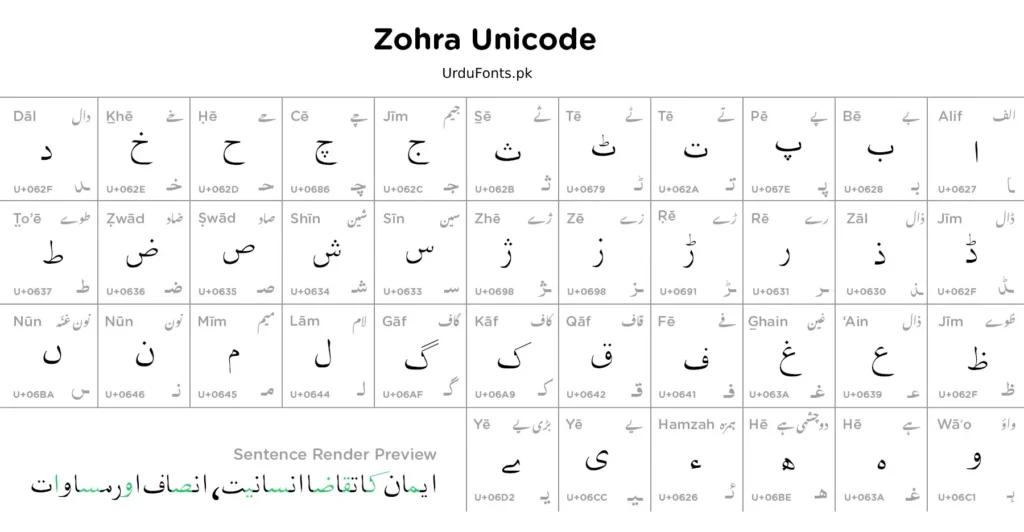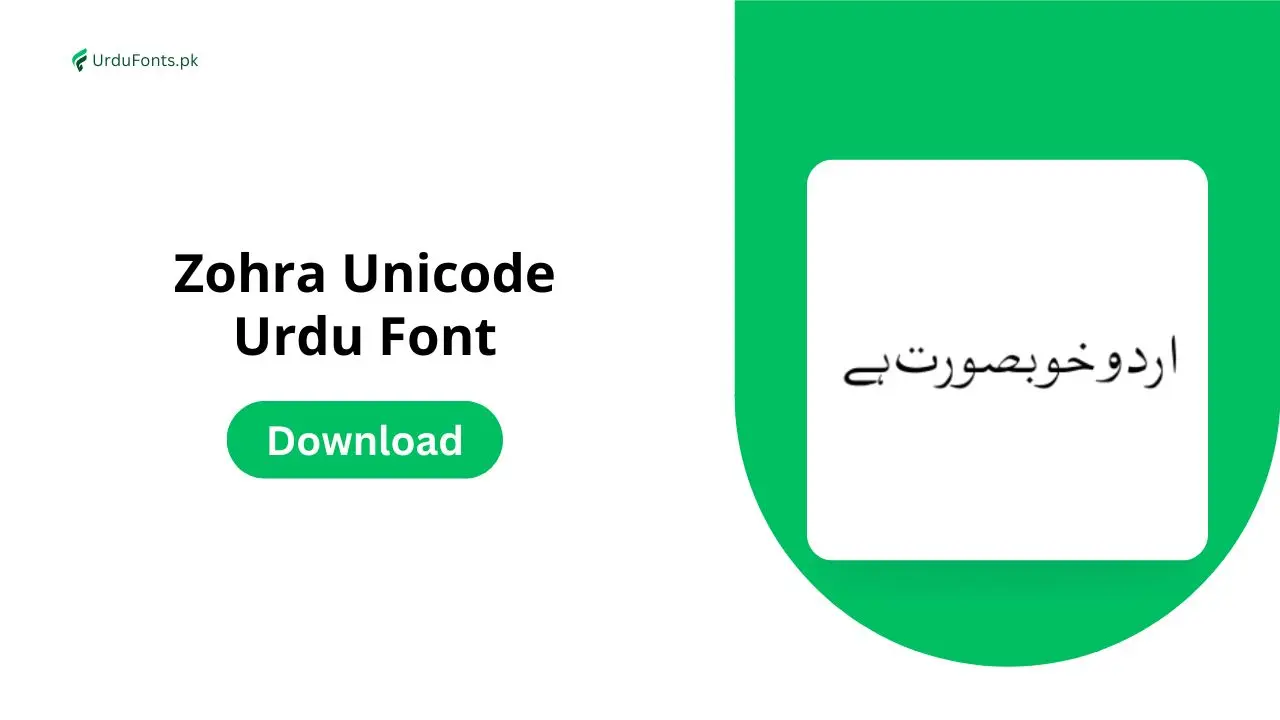
The Zohra Unicode Urdu font is a popular choice for those seeking a versatile and readable Urdu typeface. This article will guide you through the features, applications, and download process for this widely used Zohra Unicode font.
What is Zohra Unicode Urdu Font?
Zohra Unicode is a modern Naskh-style Urdu font designed for clarity and compatibility. It offers clean lines and well-proportioned characters, making it ideal for both digital and print use.
Zohra Unicode Urdu font is designed to work seamlessly across various platforms. Its Unicode compliance ensures proper text rendering and reduces encoding issues commonly faced with non-Unicode fonts.
By incorporating the Zohra Unicode Urdu font into your projects, you can significantly enhance the readability and professional appearance of your Urdu text. Whether for websites, documents, or design work, this font offers a reliable solution for clear and attractive Urdu typography.
Key Features
- Unicode-compliant for seamless text encoding
- Supports Urdu, Arabic, and Persian scripts
- Compatible with major operating systems and software